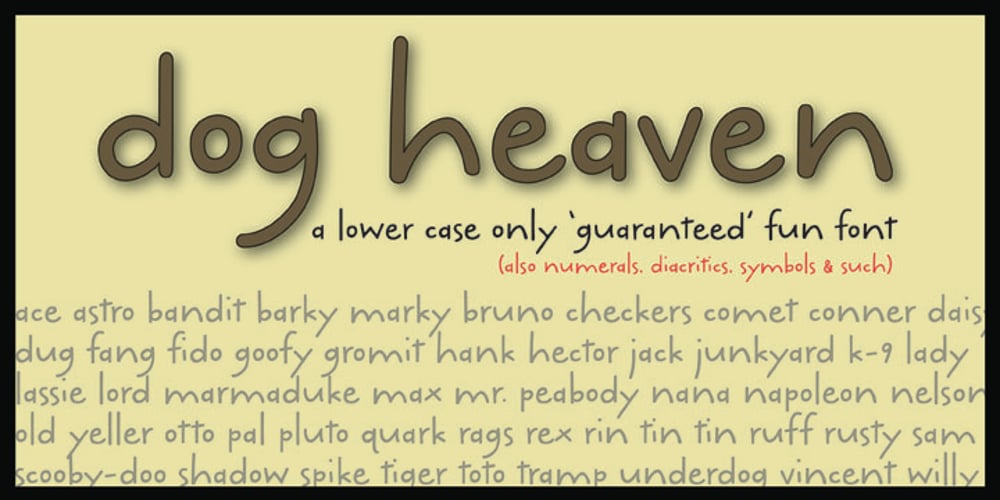
Dog Heaven Font Family was designed by Cecelia Harris and published by Letters by Wordsworth. Dog Heaven contains 1 styles and family package options. ‘dog heaven’ is a sweet font featuring lower case, symbols, numerals & diacritics. channel your e. e. cummings and forgo those cumbersome caps! perfect for any occasion where fun is required.